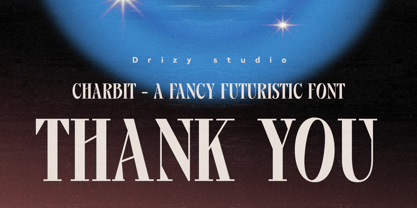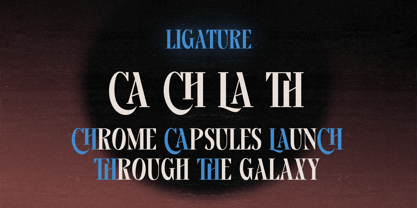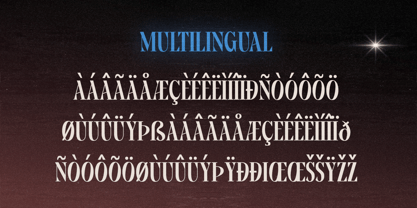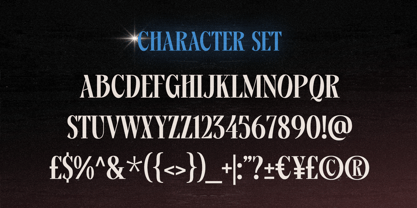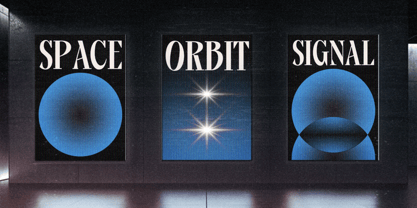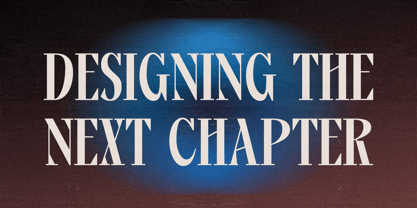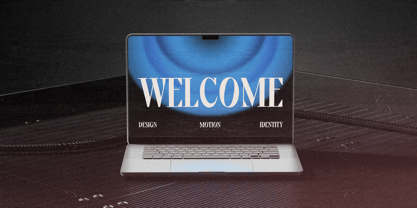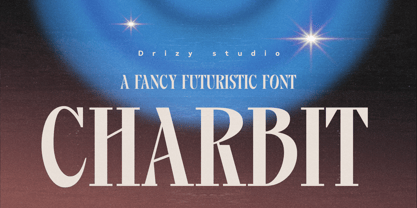
Charbit
by Drizy Font
The Charbit Font Family was designed by Panca Ahmadi Hasan and published by Drizy Font. Charbit contains 1 styles. More about this family
Charbit – Fancy Futuristic Font Charbit is a fancy futuristic typeface crafted for creators who dare to stand out. With its sleek curves, sharp cuts, and experimental letterforms, Charbit blends sci-fi aesthetics with modern elegance, creating a bold visual presence that feels ahead of its time. Designed to command attention, Charbit works beautifully for tech branding, gaming titles, posters, album covers, editorials, and digital projects. Each character is carefully shaped to deliver a dynamic rhythm, giving your typography a distinctive and memorable identity. Step into the future of design with Charbit, where innovation meets style. Charbit – Fancy Futuristic Font features: Character Set Punctuation & Numbers Multilingual Ligatures Elevate and explore the design possibilities with this Fancy Broadcast Font!
Charbit